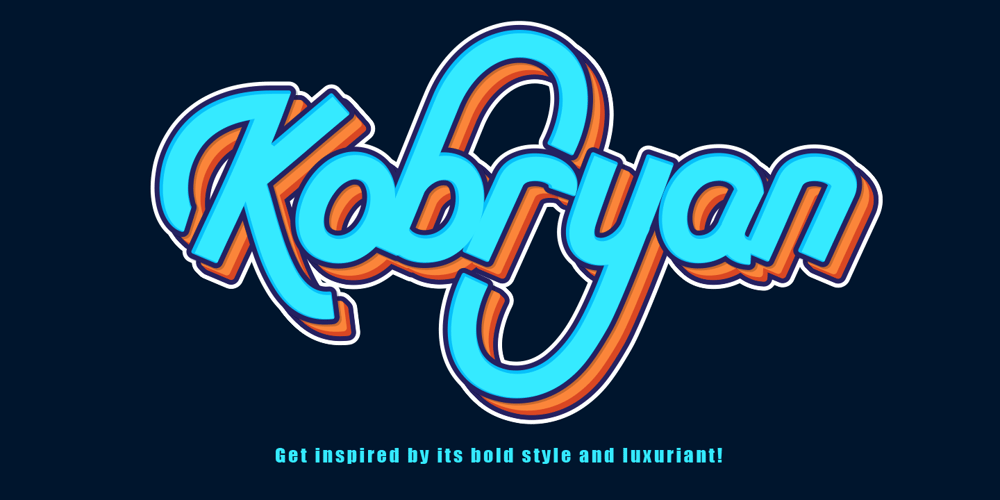
Kobryan
Kobryan font
Kobryan Font Family was designed by Thomas Aradea and published by Letterara. Kobryan contains 1 styles and family package options. Kobryan is a bold script typeface created by letterara, and is uniquely crafted to give your designs a monogram appeal.